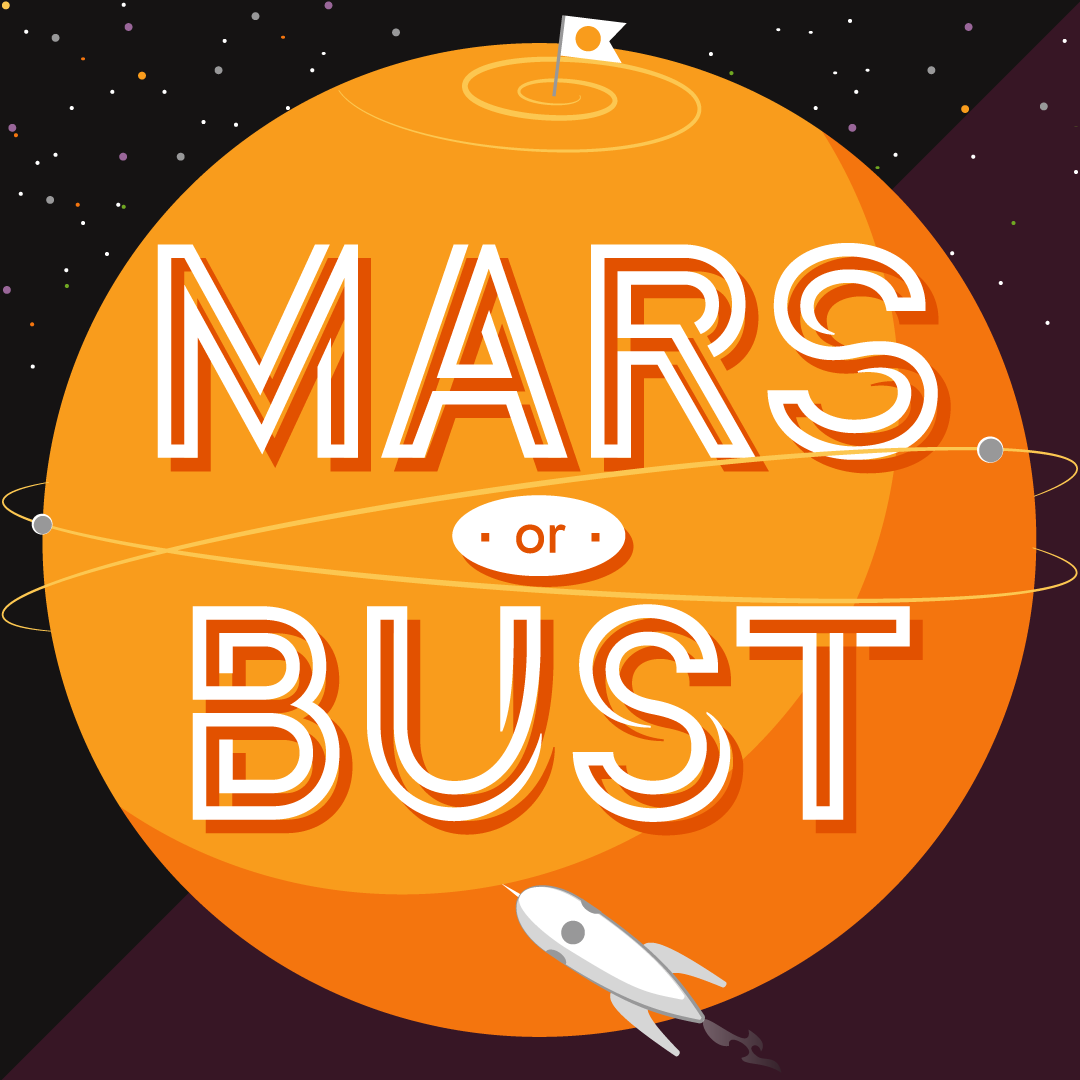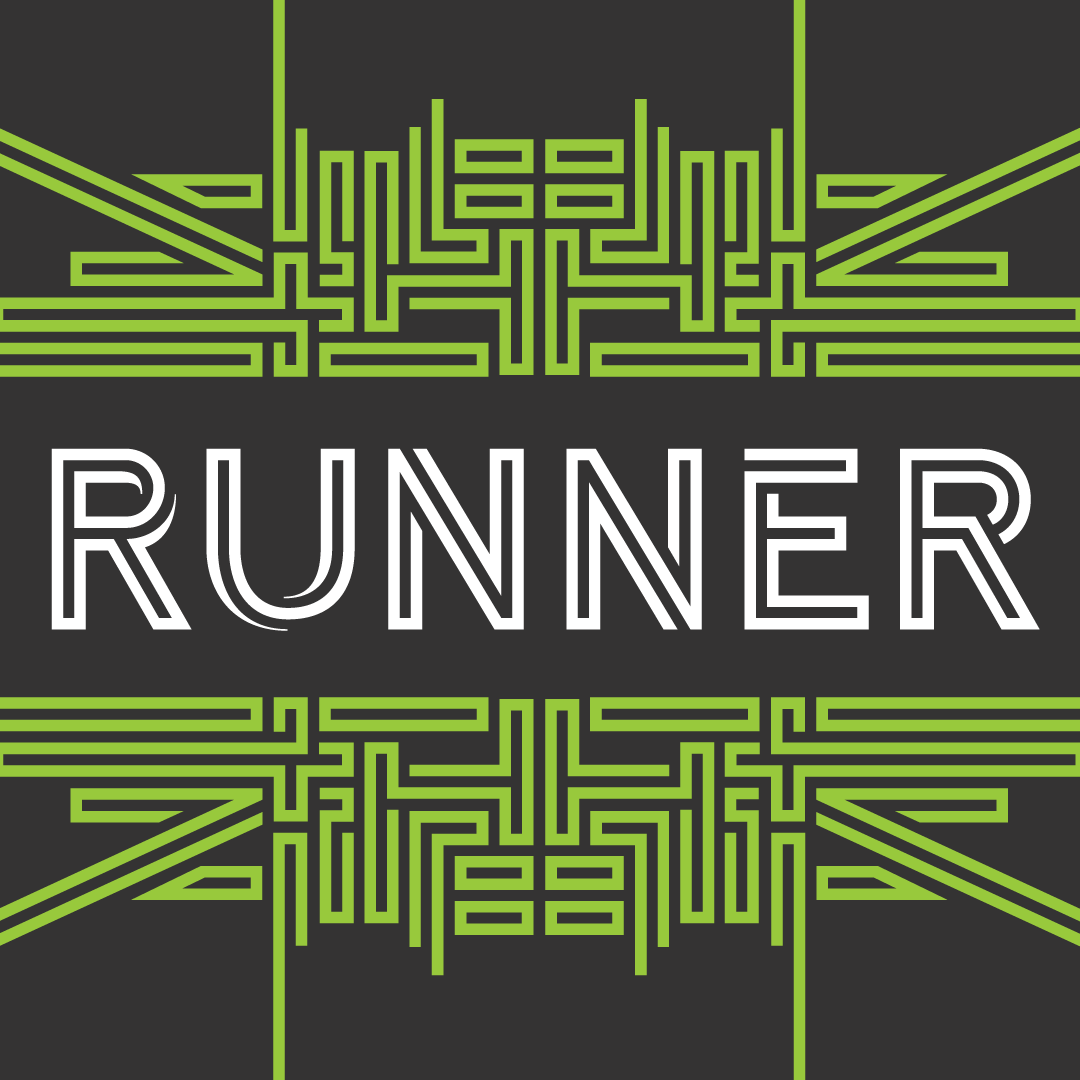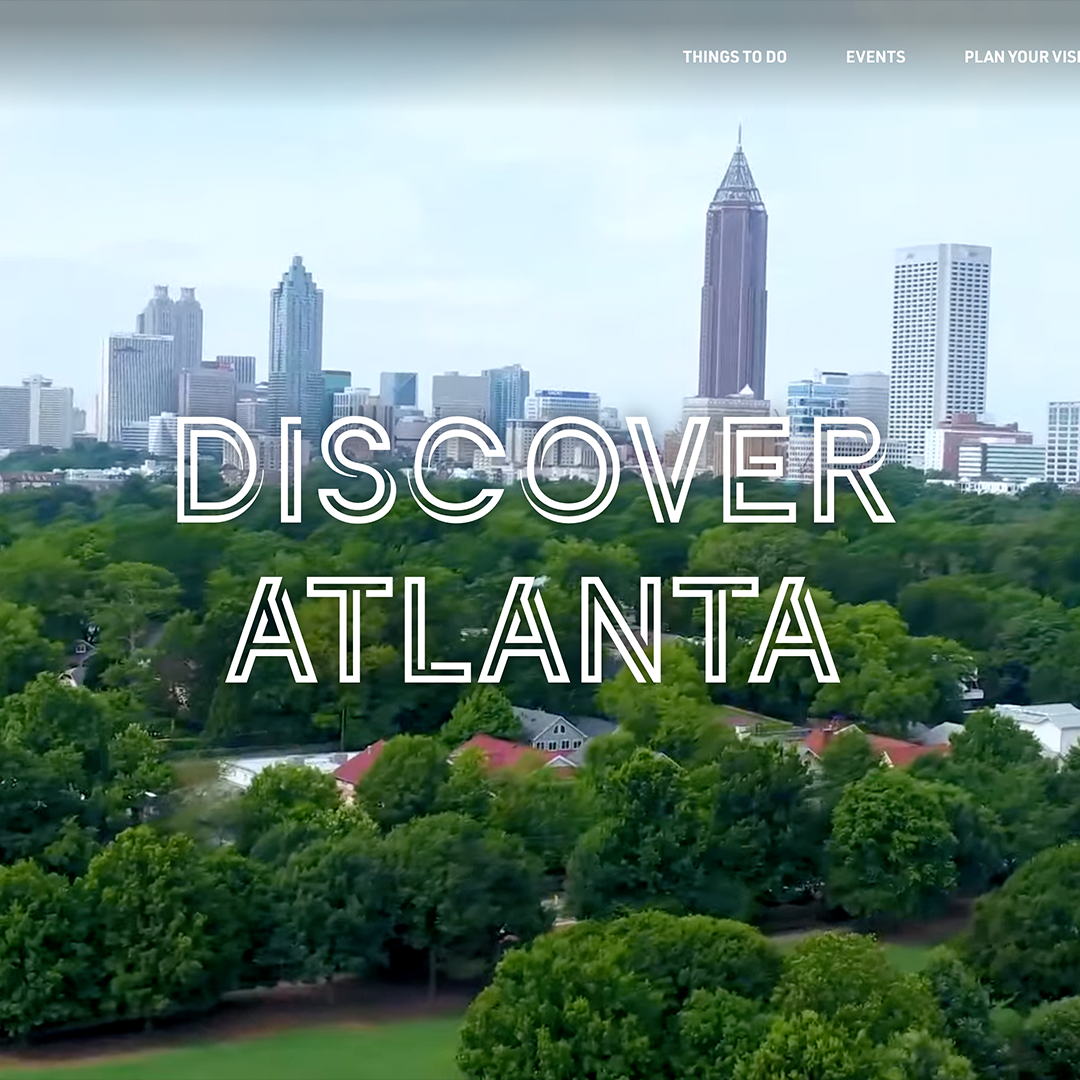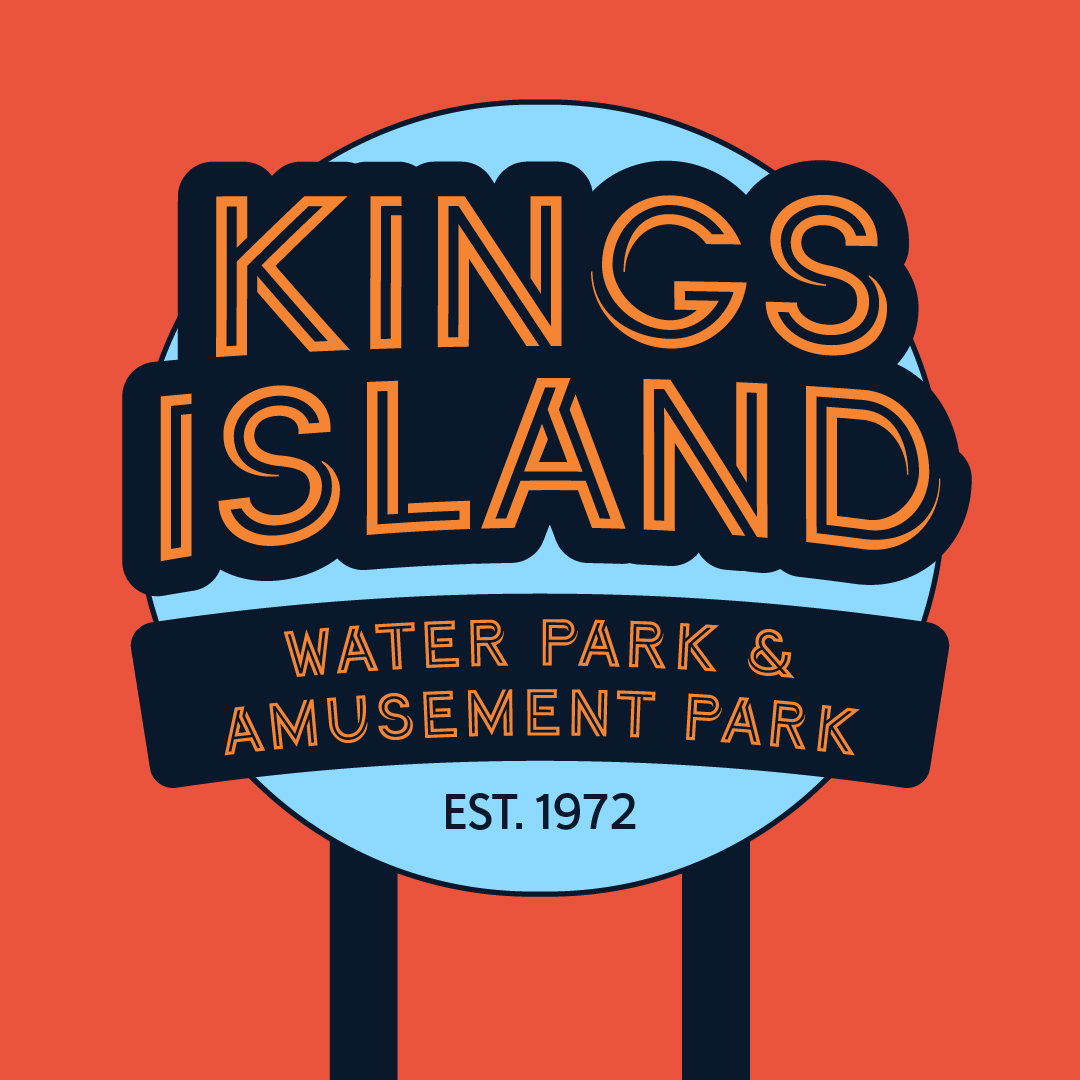
Continuo™
LetTerforms compoSed of a single, contINuoUs line.
Designed by Delve Withrington
Continuo is a fascinating, all-uppercase display typeface wherein each letterform is designed with a single, continuous line. The challenges presented by that simple idea are similar to constructing letterforms with neon tubing. For example, when the strokes of a letterform are heavier than the width of the neon tube, two tubes are employed to create the outer contours, effectively leaving an unfilled void inside the stroke. Also, since neon tubes cannot be broken apart as they trace the contours, they must follow a path that, for reasons of economy and to avoid optical massing (or bright spots in neon), the tubes are not crossed. So too, the construction of Continuo follows.
The newly updated Continuo now has alternate forms of letters A-Z available in the lowercase a-z and by extension those alternates are also present in the lowercase diacritics. The new Latin Plus glyph repertoire of Continuo contains almost 900 glyphs, supporting 461 languages, including Vietnamese and multiple African languages. A handy set of arrows and additional international currency symbols were added as well.
The name is derived from the musical term “Basso Continuo” meaning an almost constant bass line, an integral part of most musical melodies.
As an in-line display type, Continuo is ideal for headlines and most oversized applications and its unique appearance commands attention from viewers. •!•
Additional features include: Localized Forms, Numerators, Denominators, Fractions, Ordinals, Case-Sensitive Forms, Slashed Zero, and Superscript.